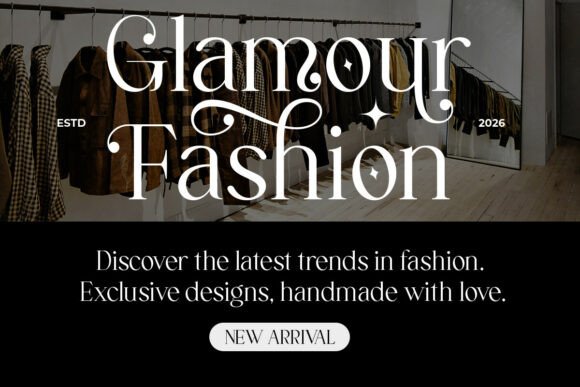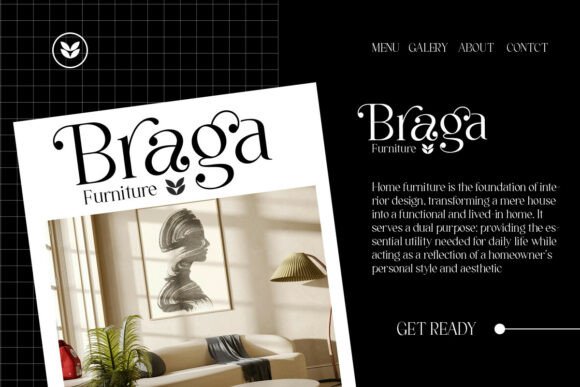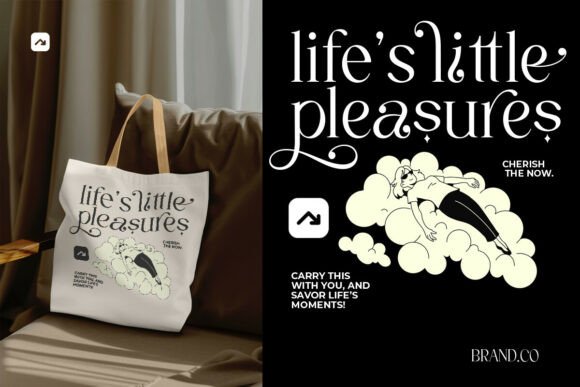
Introduction to Sarelyona Collection Font
As a designer, there’s nothing quite like the thrill of discovering a new font that elevates your creative project from good to great. For me, that moment came when I stumbled upon the enchanting Sarelyona Collection Font. Its elegant, artistic touch and luxurious feel instantly captivated me, and I knew I had to share it with fellow designers.
Perfect for branding, logos, and high-end designs, the Sarelyona Collection Font is a game-changer for designers seeking a sophisticated and timeless look. With its intricate loops, ball terminals, and sparkling diamond-shaped accents, this font is a dream come true for editorial designers and wedding planners.
Key Features of Sarelyona Collection Font
- High-quality, unique design elements perfect for creative projects requiring a touch of elegance.
- Suitable for use in various design applications, including logos, graphics, and digital art.
- Perfect for designers and artists seeking a versatile and stylish design resource for their creative projects.
Honest Review: Sarelyona Collection Font
I recently came across the Sarelyona Collection Font, and I must say it’s a great addition to any designer’s toolkit. As a designer, I’m always on the lookout for high-quality fonts that can elevate my creative projects. The Sarelyona Collection Font delivers.
What works well: ✨ This font is incredibly versatile, with a beautiful, elegant script that’s perfect for invitations, greeting cards, and other design projects where a touch of sophistication is needed. The font also comes in a transparent background option, making it easy to layer over other design elements.
Overall impression: I’m thoroughly impressed with the Sarelyona Collection Font. It’s a valuable design resource that’s perfect for designers working on creative projects that require a high level of sophistication and elegance. The transparent background option is a nice touch, and the free download is a bonus.
- High-quality, elegant script font
How to Use Sarelyona Collection Font
Using in Creative Platforms
For the best results, use the Sarelyona Collection Font on a transparent background to give your design a clean and modern look. You can also experiment with different font sizes and colors to add depth and interest to your design.
The Sarelyona Collection Font is perfect for a variety of creative projects, including logos, business cards, and social media graphics. It’s also great for designing presentations, brochures, and other marketing materials.
Alternatives to Sarelyona Collection Font
The Alex Brush Font is a high-quality script font suitable for creative projects requiring a touch of elegance. It features a transparent background, making it ideal for overlays and other design elements. This font is perfect for designers seeking a sophisticated, handwritten look.
Compared to Sarelyona Collection Font, Alex Brush Font offers a more refined, brush-like appearance. While Sarelyona Collection Font has a more playful, whimsical feel, Alex Brush Font provides a more polished, high-end look.
The Great Vibes Font is a modern, elegant script font designed for use in a variety of creative projects. It features a transparent background and is available for free download, making it an excellent design resource for designers on a budget.